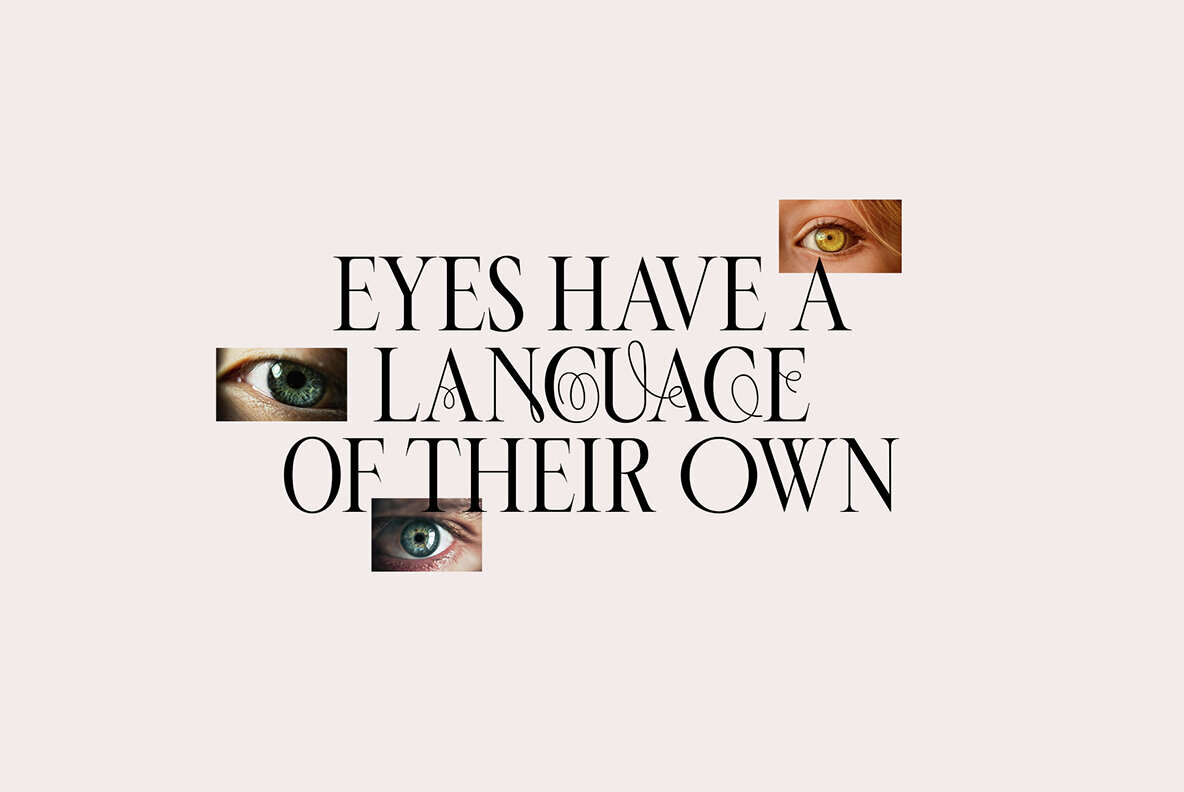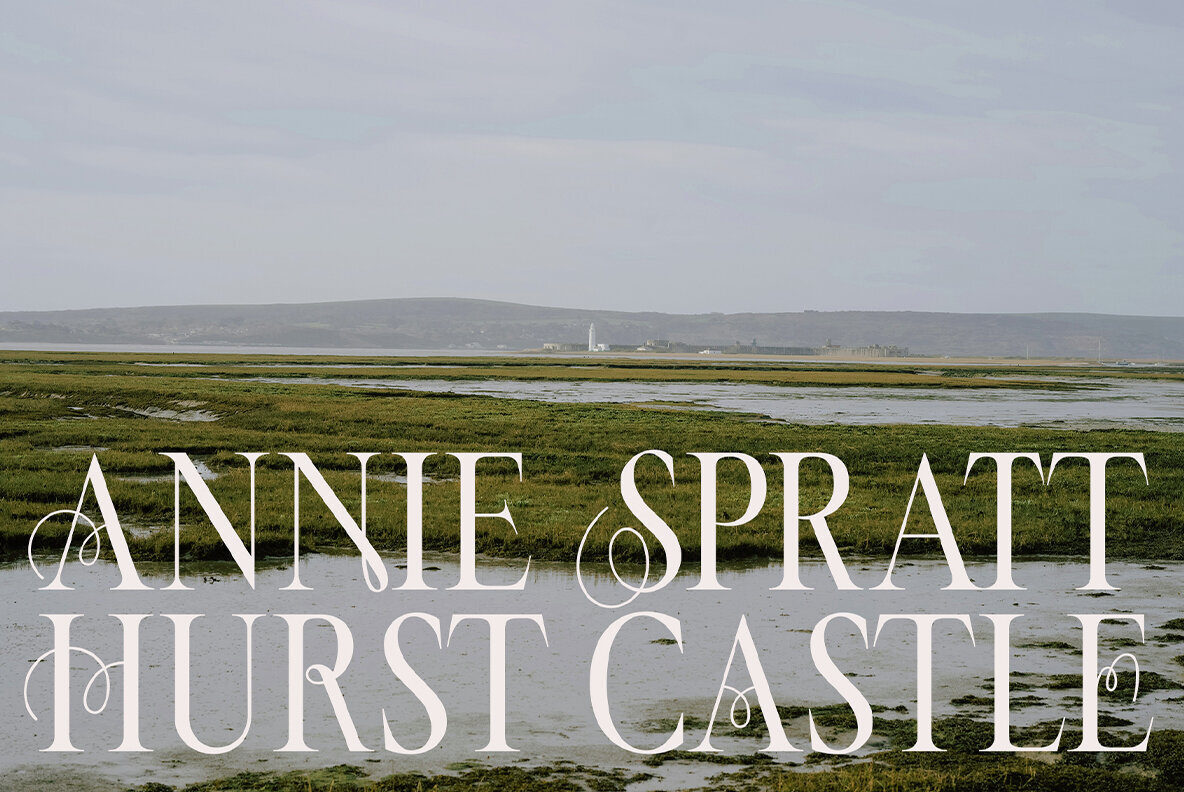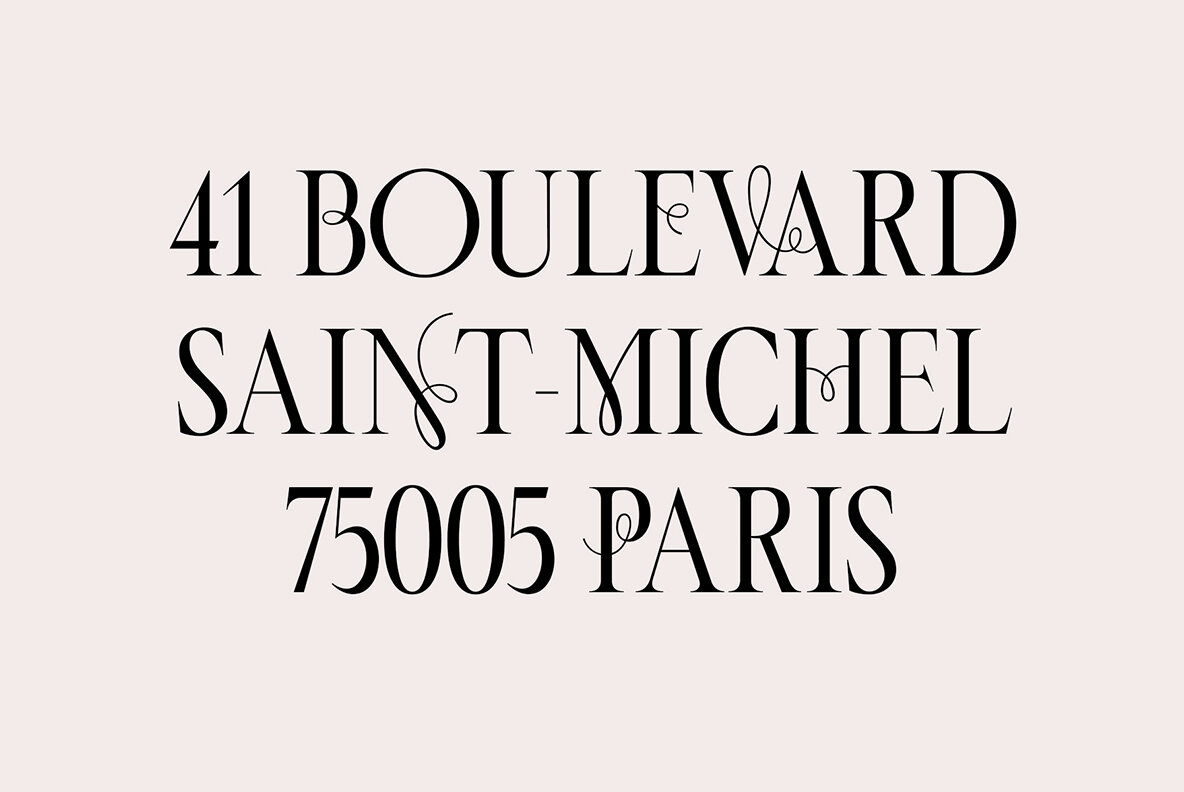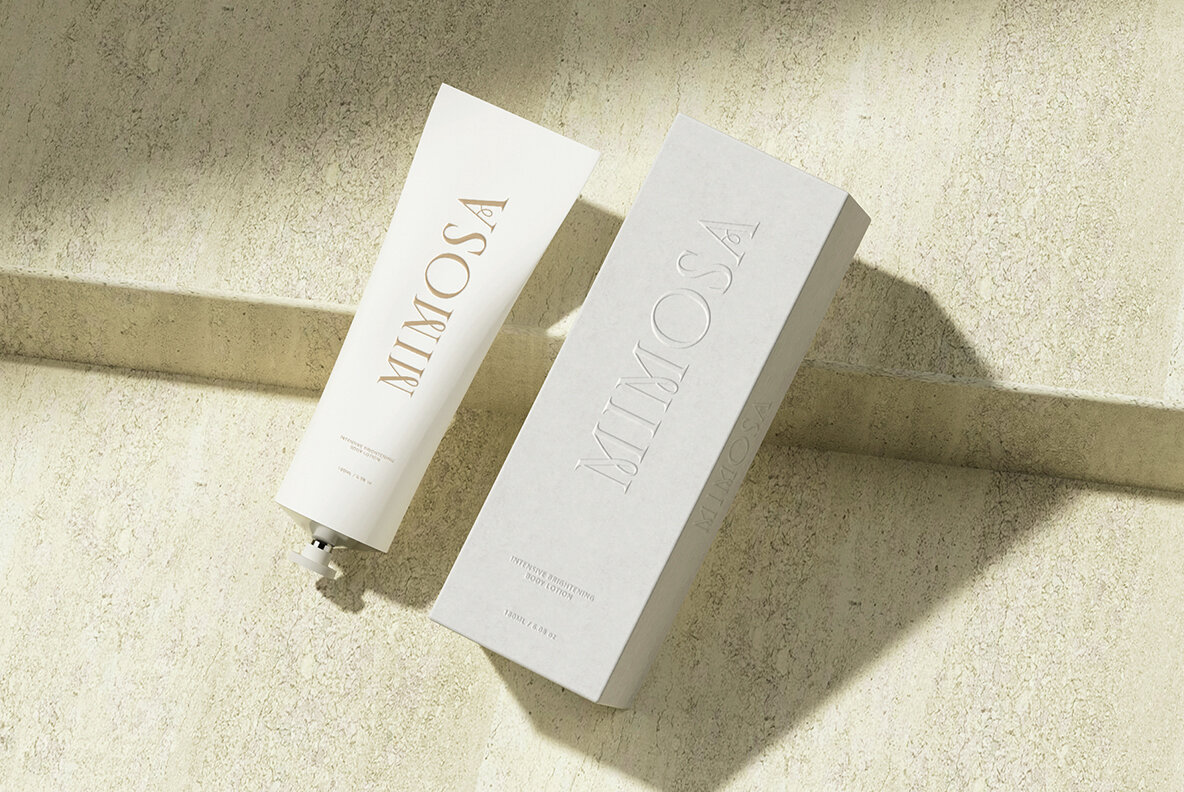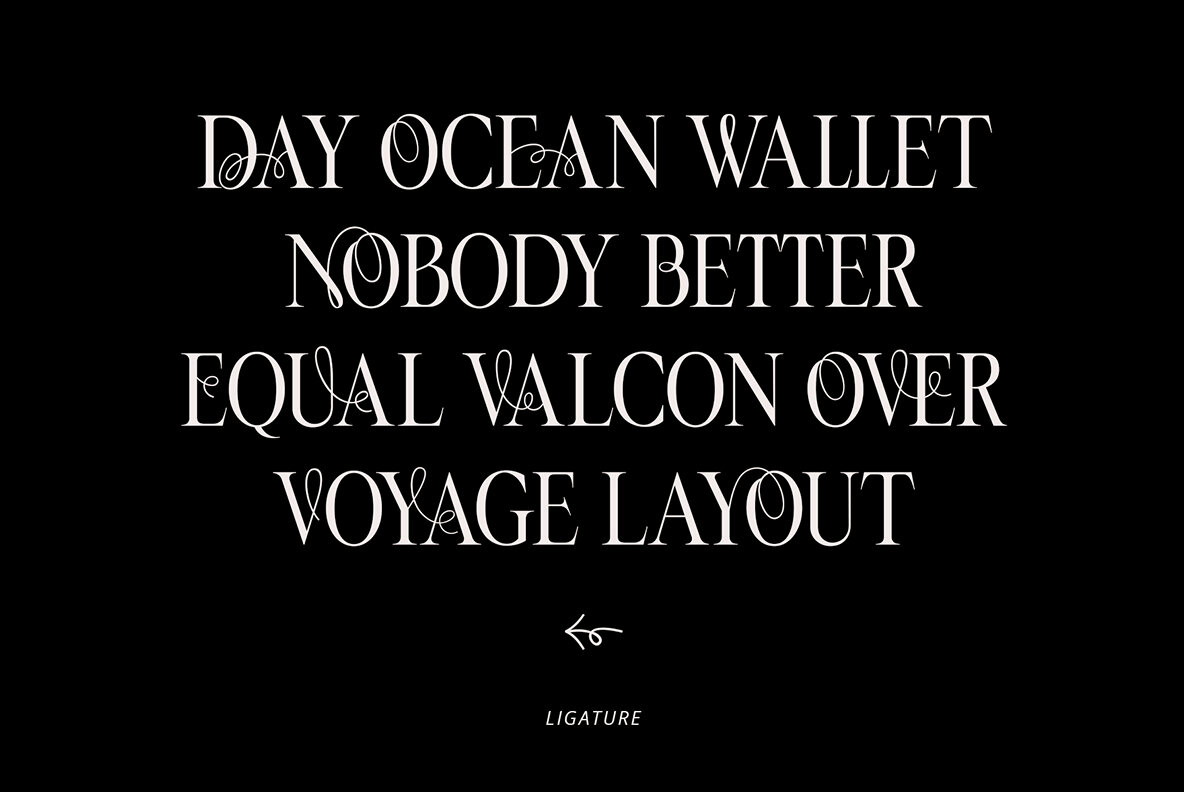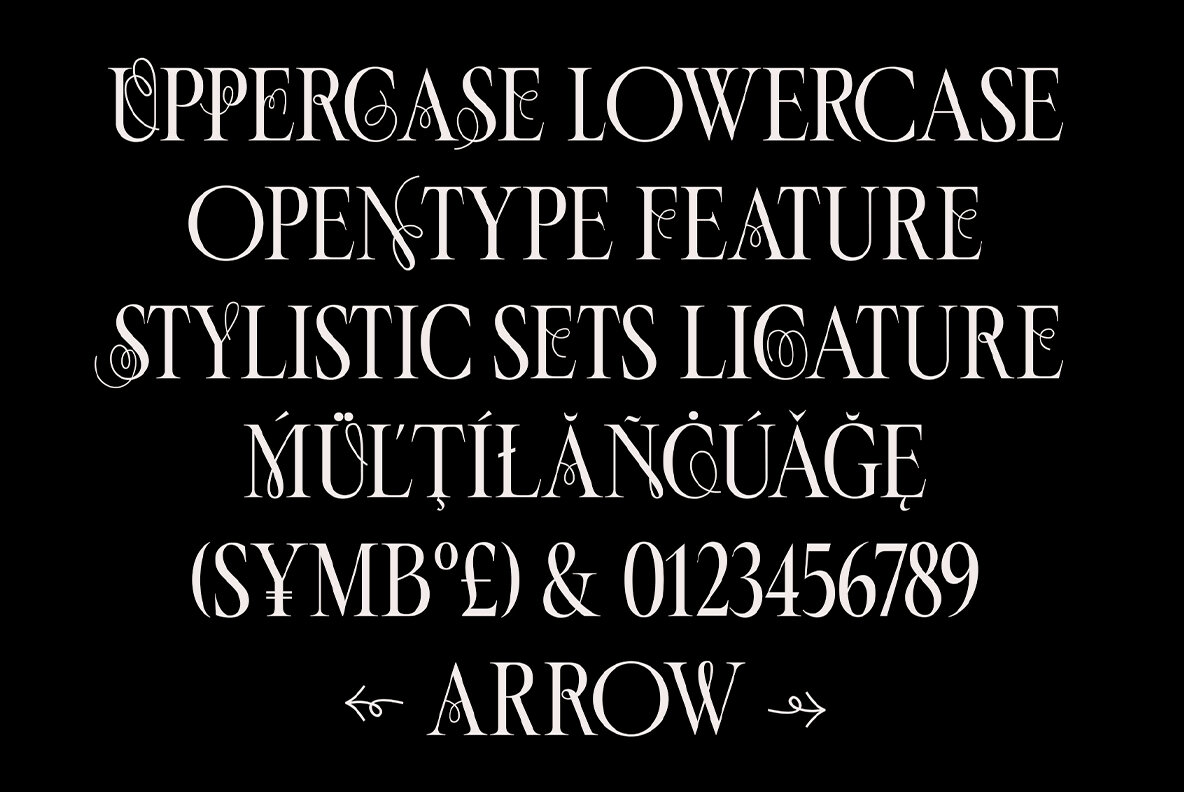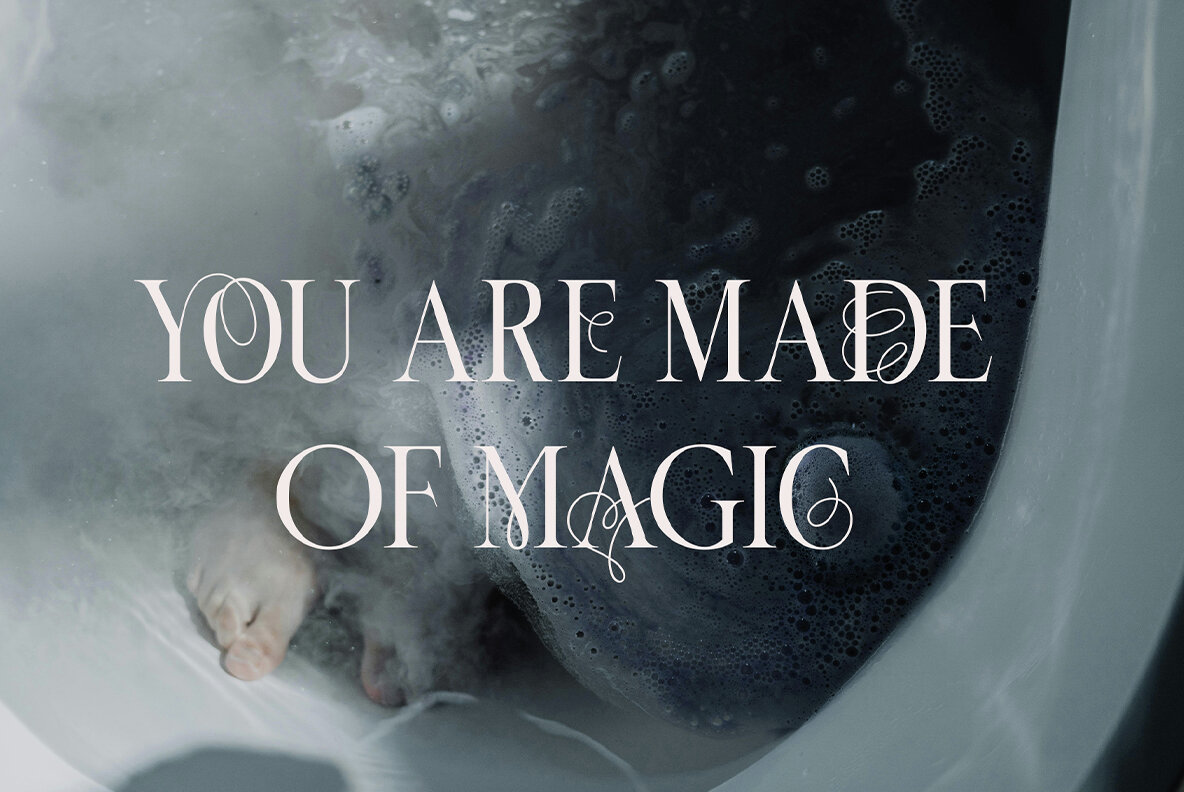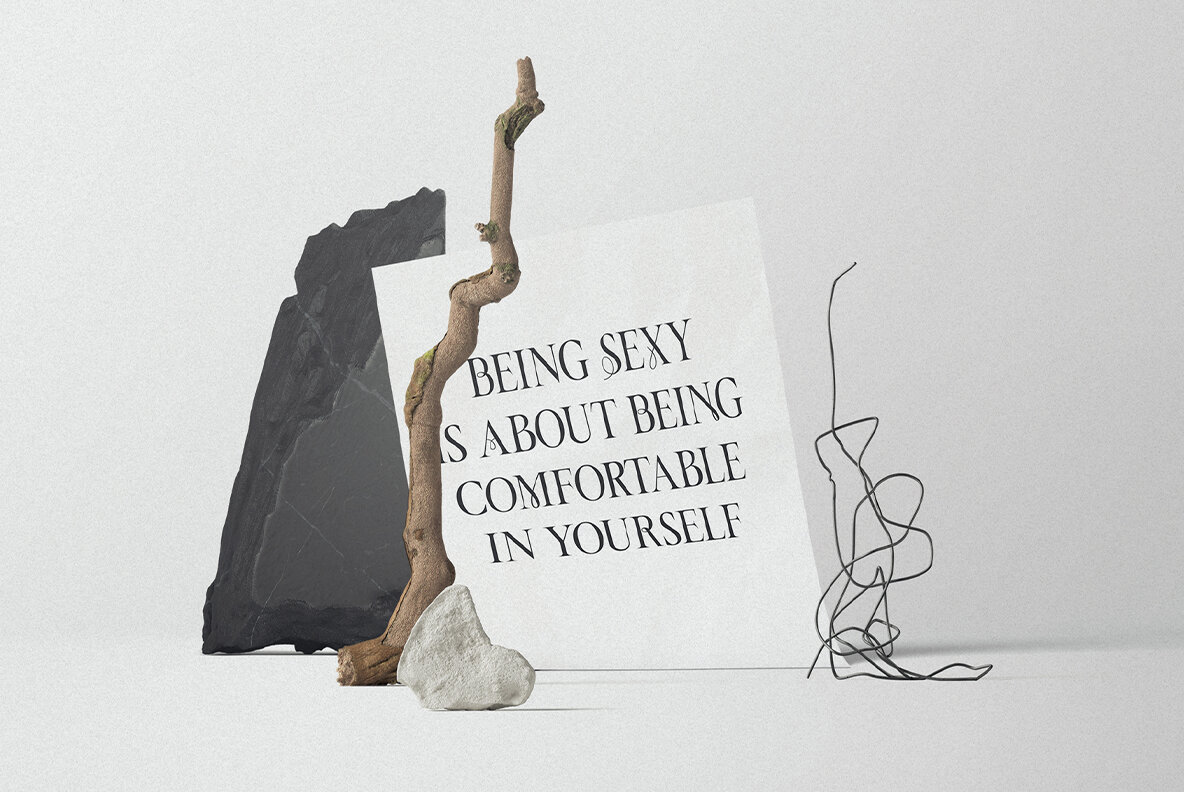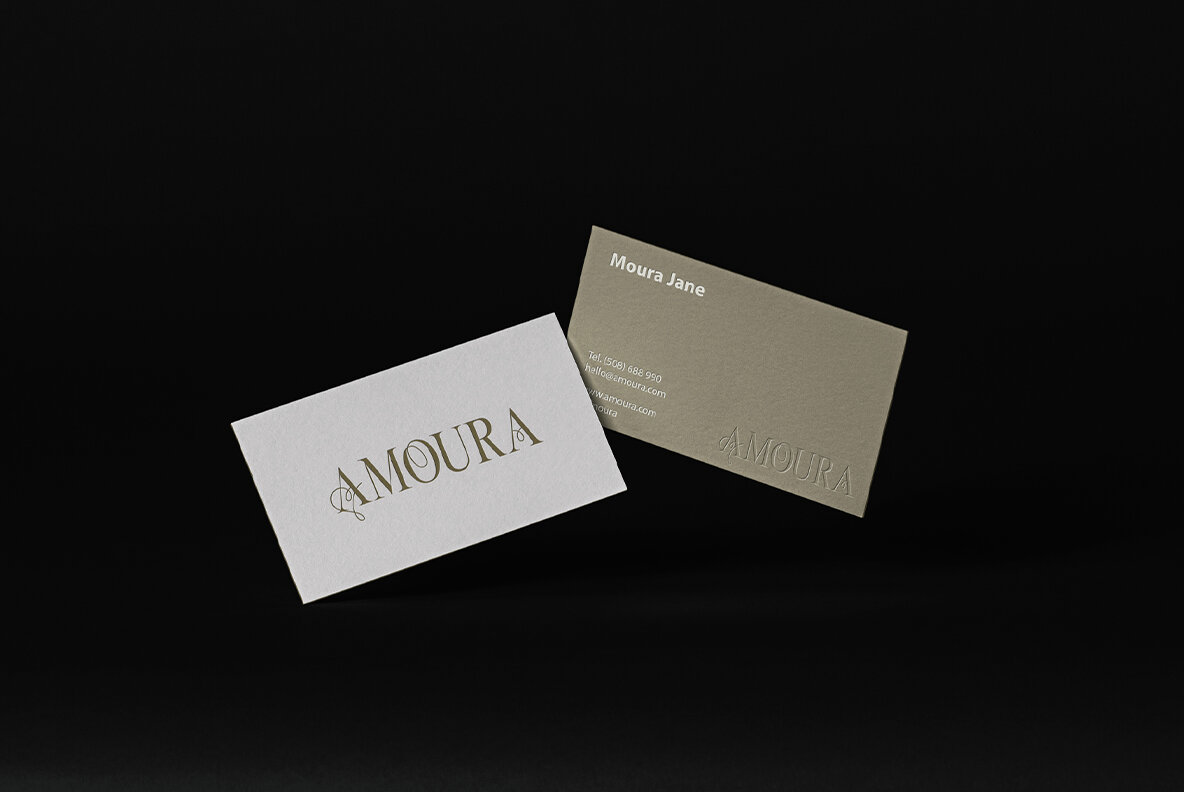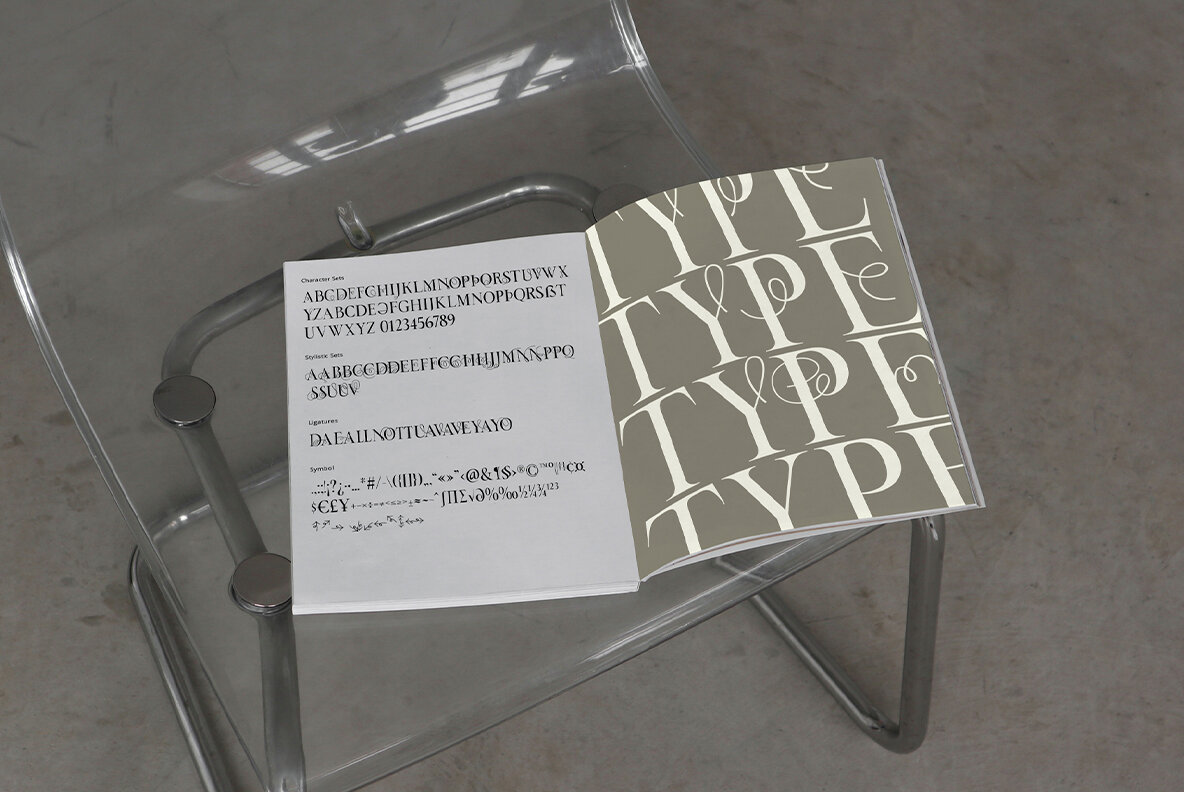
ED Manola Font
ED Manola Regular
Manola is a unique serif display font that has an elegant, modern, and fun impression, which makes this font easy to combine with other fonts and can be used in various designs. Manola has the appearance of uppercase letters where the difference lies in the style of the letters, whereas the uppercase group has styled letters that can be combined with the lowercase group of letters. Apart from that, this font is also equipped with OpenType features such as Ligature, Stylistic sets, and multi-language support. This font is perfect for your design needs such as branding products, magazines, books, posters, packaging designs, logos, social media designs, t-shirts, and more.